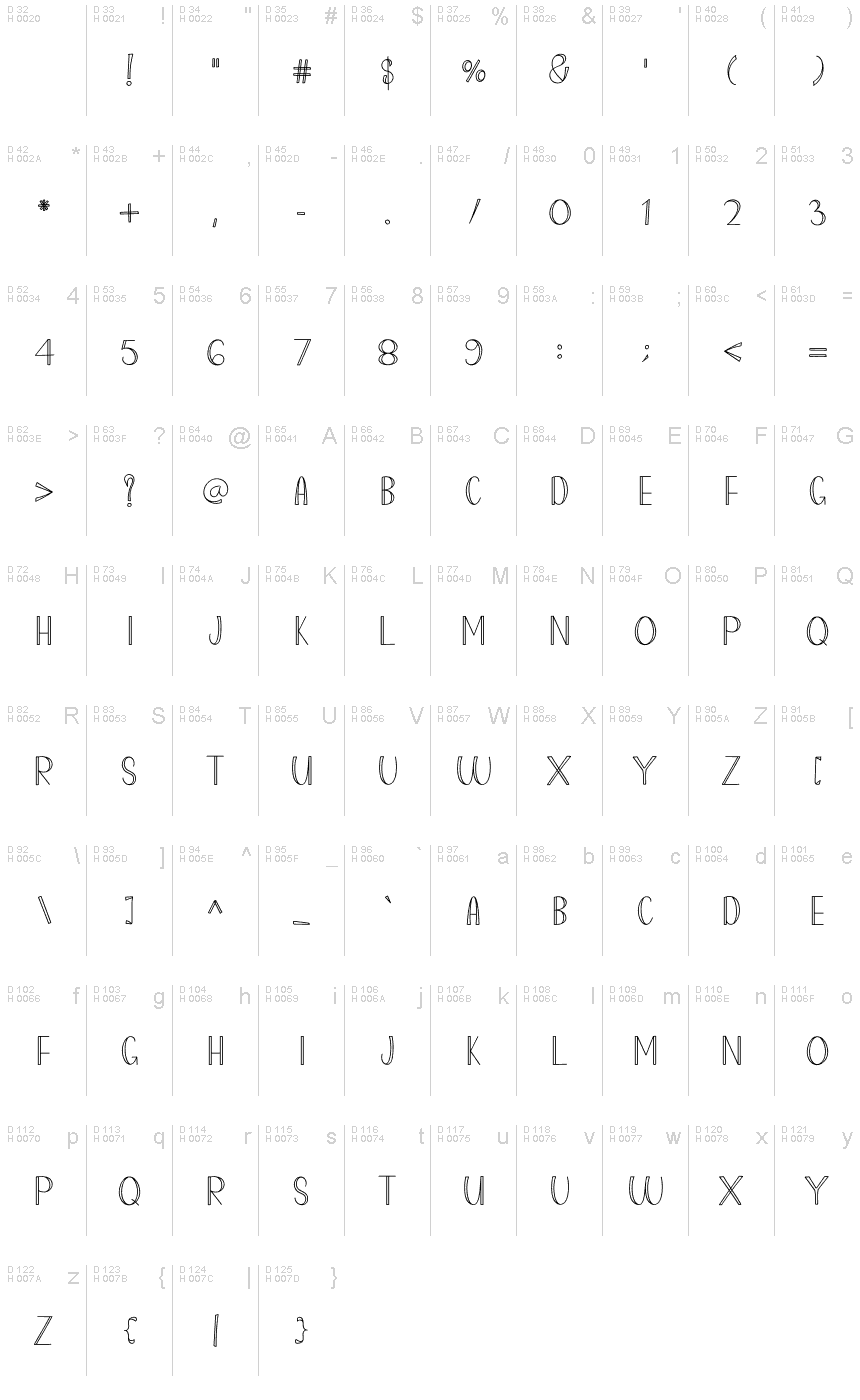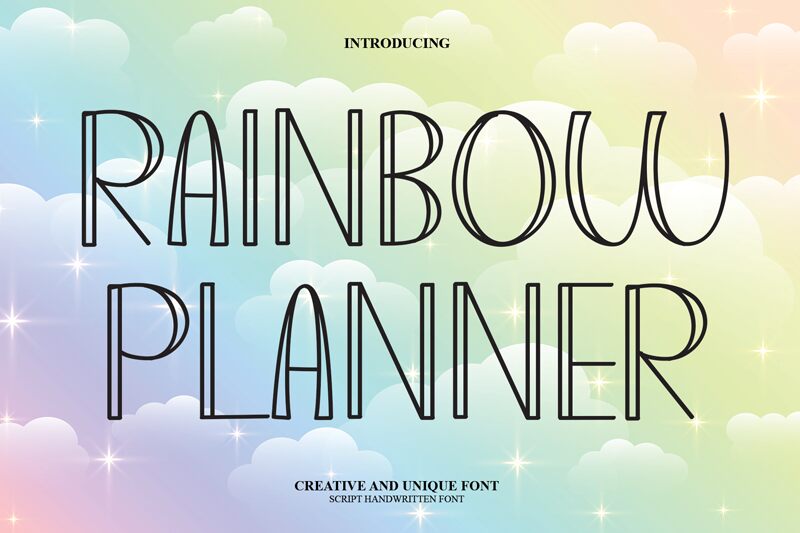
Rainbow Planner
Rainbow Planner, the latest addition to Belina Studio's collection of display fonts, boasts a unique outlined style that is sure to make any project stand out. Its semi-light weight and semi-condensed width make it versatile for various design projects such as event invitations, social media graphics, and even product packaging. Perfect for those who want to add a playful touch with its vibrant colors, Rainbow Planner is an excellent choice for those who want to create eye-catching designs that are both fun and professional. Let your creativity run wild with Rainbow Planner!
the latest style letters are perfect for wall displays, wedding invitations, social media post logos, advertisements, product packaging, product designs, labels, photography, watermarks, invitations, stationery, and any project that requires taste handwriting.